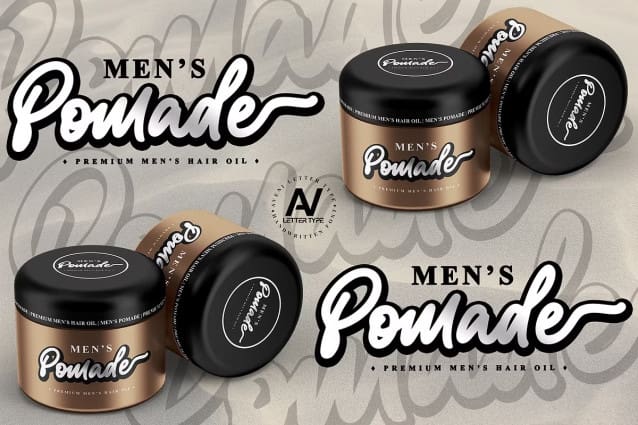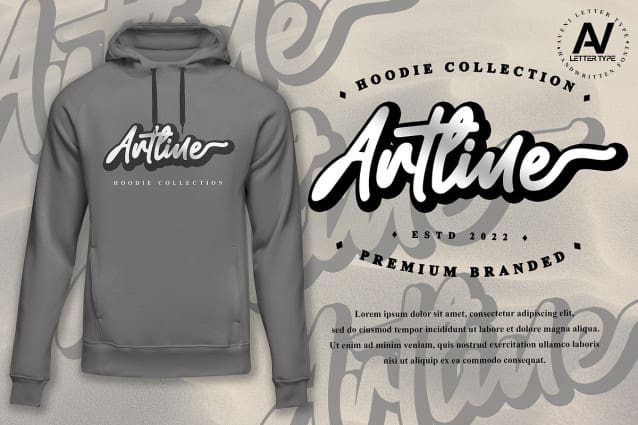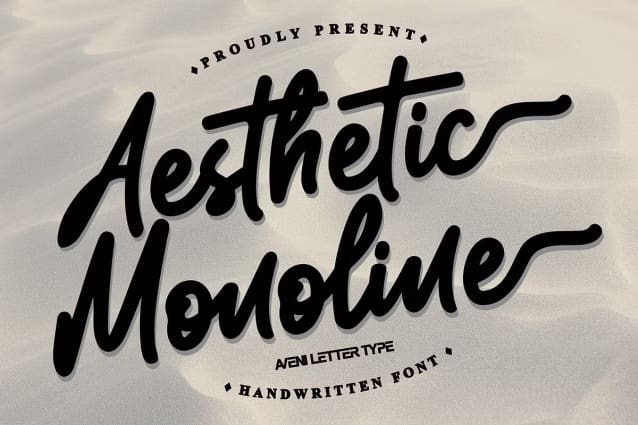
Aesthetic Monoline Font
Aesthetic Monoline Font, I was born with a handwritten font but still, a monoline style is elegant and has very neat kerning. This font will look great in many projects, for example, you can use it for business cards, cosmetic branding, tote bag branding, wedding invitations, product packaging, headers, posters, merchandise, apparel branding, social media & greeting cards, and so much more!